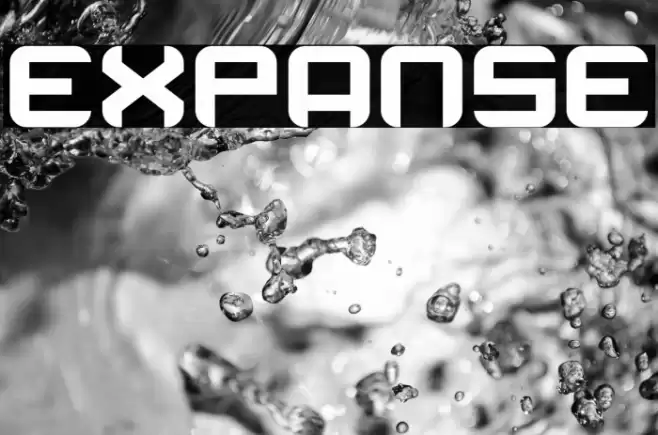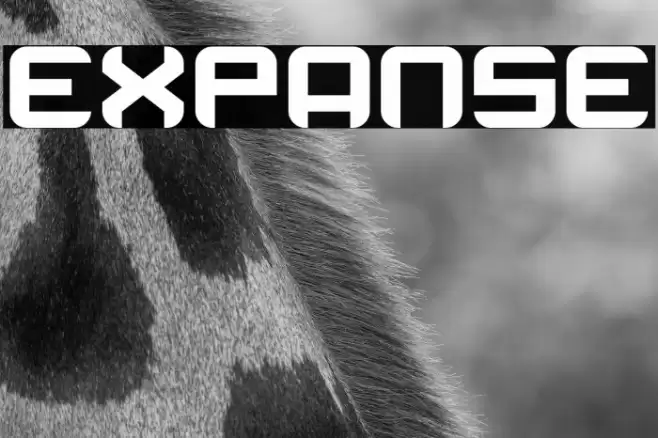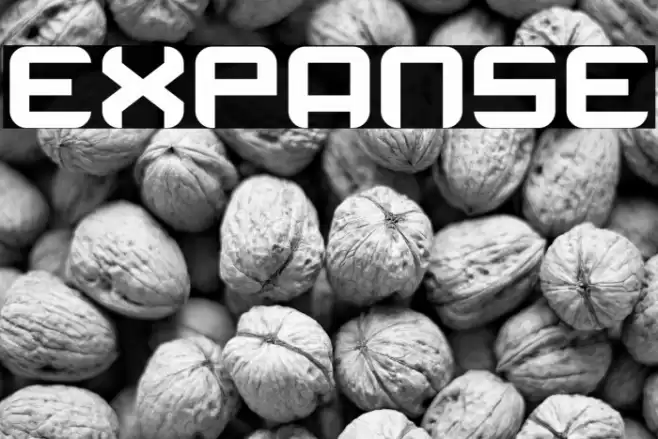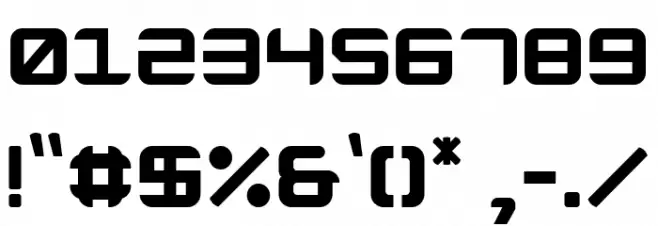
Expanse Font
Expanse Description
This font features a futuristic and geometric design with rounded edges and a bold presence. The characters are uniformly structured, offering a modern and sleek appearance. The uppercase letters are distinct with a consistent height, while the lowercase letters maintain a similar width, creating a harmonious balance. The numerals are clear and bold, matching the overall style of the alphabet. Special characters are uniquely designed, adding to the font's versatility. The font's design is ideal for projects that require a modern and tech-savvy look.
- Proposed Projects: Ideal for technology branding, sci-fi posters, video game interfaces, and modern advertising.